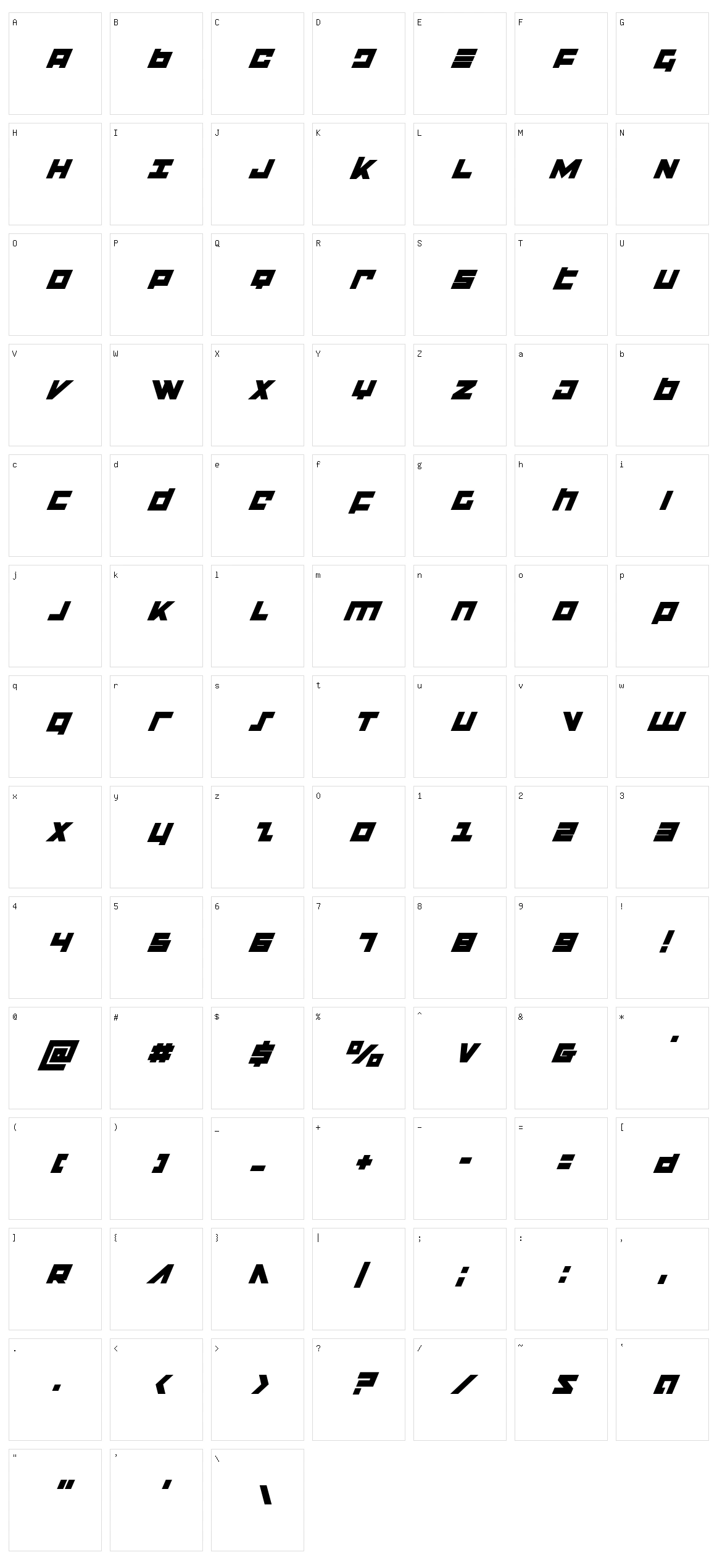
This font comes with the following 23 versions: Regular, Italic, Semi-Italic, Super-Italic, Leftalic, Condensed, Condensed Italic, Expanded, Expanded Italic, 3D, 3D Italic, Halftone, Halftone Italic, Laser, Laser Italic, Gradient, Gradient Italic, Chrome, Chrome Italic, Academy, Academy Italic, Title and Title Italic.